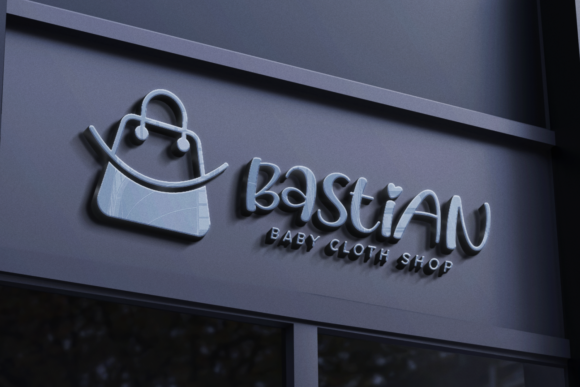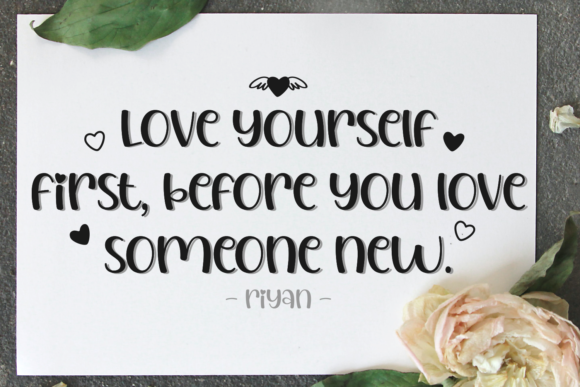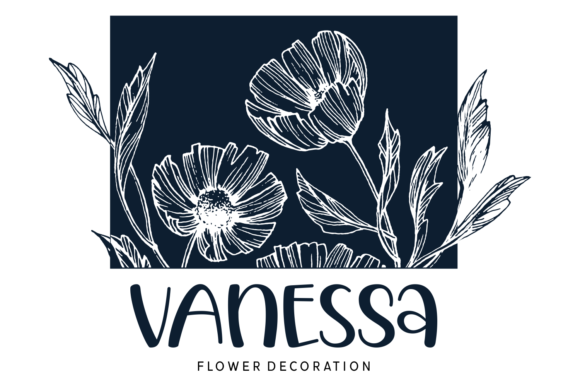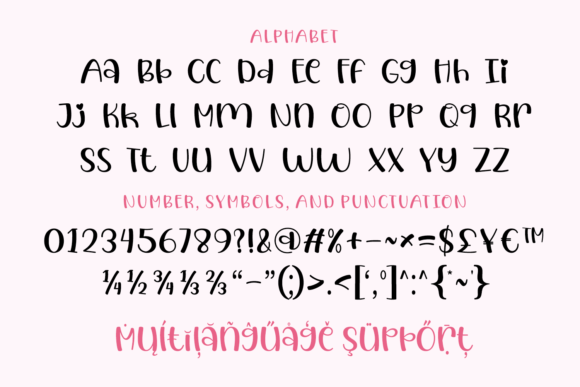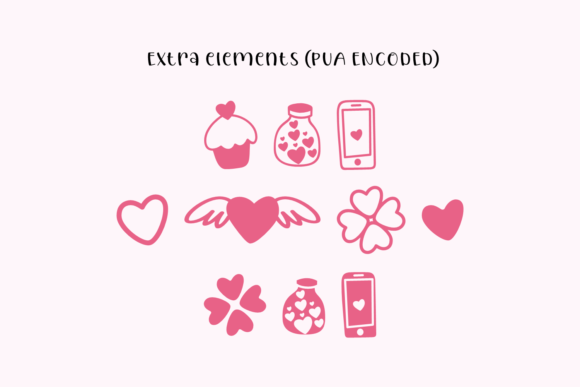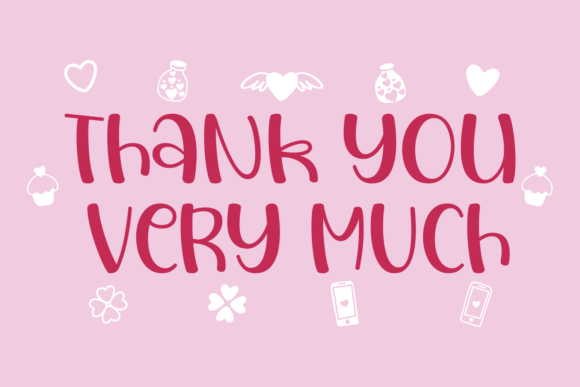
Introducing Dear Julie Font: The Sweetest Display Font for Your Designs
Are you looking for a font that can add a touch of sweetness and charm to your designs? Look no further than Dear Julie Font! This gorgeous display font is perfect for creating adorable and eye-catching designs for various projects, from baby cloth shops to wedding invitations.
What Makes Dear Julie Font So Special?
Dear Julie Font is a unique and creative typeface that features round-shaped characters with little heart details. Its distinctive design makes it stand out from other fonts, and its sweetness is sure to capture the hearts of your audience. The font’s character set is carefully crafted to convey a sense of innocence and playfulness, making it perfect for designs that require a touch of whimsy.
Use Dear Julie Font for a Variety of Design Projects
Dear Julie Font is a versatile typeface that can be used for a wide range of design projects, including:
- Baby cloth shops: Create adorable labels, tags, and packaging for baby clothes and accessories.
- Headlines and magazines: Add a touch of sweetness to your headlines and magazine covers.
- Posters and flyers: Create eye-catching posters and flyers for events, promotions, and products.
- Children-themed designs: Design fun and playful materials for kids, such as stickers, coloring books, and activity sheets.
- Quotes and typography: Use Dear Julie Font to create inspiring and heartwarming quotes.
- Wedding invitations: Add a touch of romance and whimsy to your wedding invitations and stationery.
- Birthday cards and party decorations: Create adorable birthday cards, banners, and party decorations.
- Flower decorations: Design beautiful and delicate flower arrangements and decorations.
- PUA (Private Use Area) encoding, making it easy to access and use the font’s special characters.
- Extra cute elements, including:
- A cookie design
- A heart jar design
- A heart with wings design
- Shamrocks designs
Why Designers and Crafters Love Dear Julie Font
Dear Julie Font is a favorite among designers and crafters for several reasons:
- Unique and distinctive design: Dear Julie Font’s round-shaped characters and heart details make it a one-of-a-kind typeface.
- Versatile: Dear Julie Font can be used for a wide range of design projects, from baby clothes to wedding invitations.
- Cute and playful: The font’s sweetness and playfulness make it perfect for designs that require a touch of whimsy.